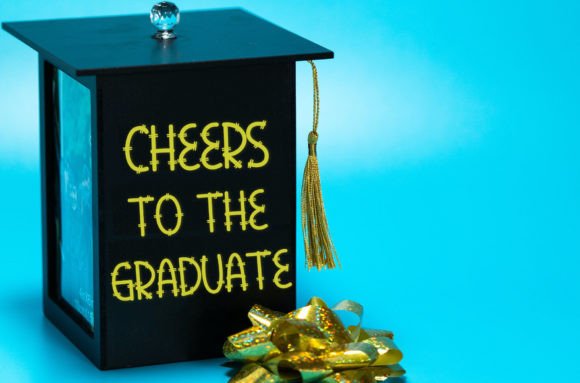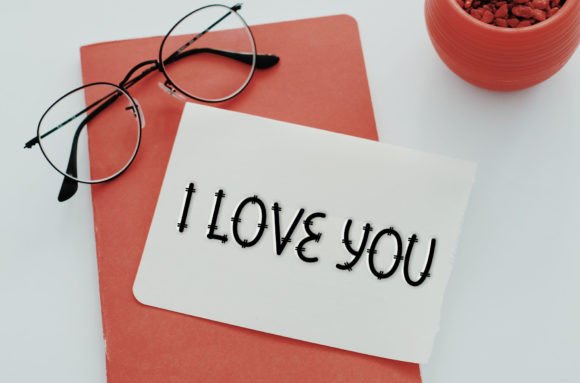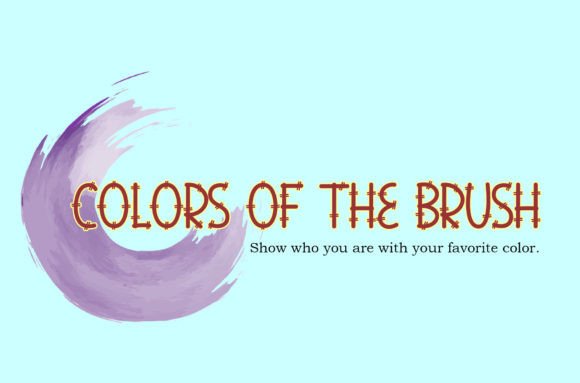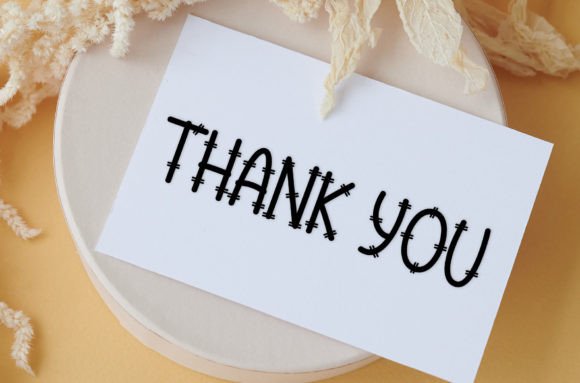
Introducing Farmhouse Font: The Perfect Addition to Your Design Arsenal
Are you a designer, crafter, or DIY enthusiast looking for a font that can elevate your creations? Look no further than Farmhouse Font, a delicate, cute, and stylish handwritten display font that’s perfect for a wide range of applications. In this article, we’ll dive into the world of Farmhouse Font, exploring its features, uses, and benefits, and why it’s a must-have for anyone looking to add a touch of elegance and whimsy to their designs.
Farmhouse Font is a beautifully crafted handwritten display font that’s designed to add a touch of rustic charm and sophistication to any design. With its delicate lines, cute details, and stylish flair, this font is perfect for creating eye-catching headlines, titles, and text overlays that will make your designs stand out from the crowd.
- Delicate and Cute: Farmhouse Font features delicate lines and cute details that give it a charming and whimsical feel.
- Stylish and Elegant: Despite its playful nature, Farmhouse Font exudes elegance and sophistication, making it perfect for high-end designs.
- Handwritten: Farmhouse Font is a handwritten font, giving it a personal and organic feel that’s perfect for creating unique and eye-catching designs.
- Versatile: Farmhouse Font is suitable for a wide range of applications, from greeting cards to headlines, wedding invites, stickers, and more.
Uses of Farmhouse Font
Farmhouse Font is an incredibly versatile font that can be used in a variety of design applications, including:
- Greeting Cards: Add a personal touch to your greeting cards with Farmhouse Font’s delicate and stylish script.
- Wedding Invites: Make your wedding invites truly special with Farmhouse Font’s elegant and whimsical feel.
- Headlines and Titles: Use Farmhouse Font to create eye-catching headlines and titles that will make your designs stand out.
- Stickers and Overlays: Add a touch of personality to your stickers and overlays with Farmhouse Font’s cute and playful details.
Benefits of Using Farmhouse Font
So why choose Farmhouse Font for your design needs? Here are just a few benefits of using this beautiful font:
- Unique and Eye-Catching: Farmhouse Font is a one-of-a-kind font that will add a touch of personality to your designs.
- Easy to Read: Despite its delicate nature, Farmhouse Font is easy to read, making it perfect for use in a variety of design applications.
- Customizable: Farmhouse Font can be customized to fit your design needs, allowing you to adjust the size, color, and style to suit your project.
To get the most out of Farmhouse Font, here are a few tips to keep in mind:
- Pair with Other Fonts: Farmhouse Font pairs well with other fonts, so don’t be afraid to experiment with different combinations.
- Use in Combination with Images: Farmhouse Font looks great when used in combination with images, so try overlaying it on top of a photo or illustration.
- Experiment with Colors: Farmhouse Font looks great in a variety of colors, so don’t be afraid to experiment with different hues and shades.